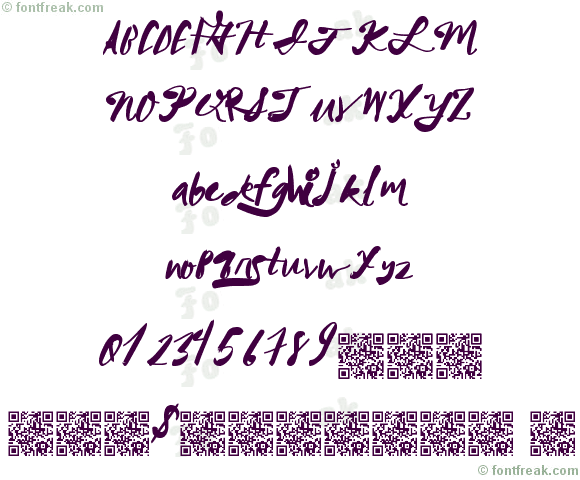
MegaRiches
MegaRiches by Xerographer Fonts is an eye-catching display font that effortlessly combines elegance with a touch of modern flair. This handwritten typeface is characterized by its bold strokes and artistic flair, creating a sense of dynamic movement that draws attention. The fluidity of the letters, paired with a moderate contrast in stroke weight, makes it particularly engaging while maintaining readability. The carefully crafted spacing between characters enhances its visual appeal, ensuring each letter stands out without overwhelming the viewer.
This versatile font is ideal for a range of creative projects. It shines in wedding invitations, where its romantic style can elevate the overall design. Additionally, MegaRiches is perfect for movie posters, capturing the viewer's interest with its unique aesthetic. Restaurant menus can benefit from its inviting tone, making dishes seem more enticing. Furthermore, it serves as an excellent choice for branding materials and social media graphics, helping small businesses make a memorable impression.
Targeting graphic designers, small business owners, and content creators, MegaRiches offers a fresh alternative to more traditional typefaces. Its distinctive style allows users to express creativity while delivering messages in an impactful manner. The font's freeware license makes it accessible for various projects, allowing for broad usage without the constraints of commercial licenses.
What truly sets the MegaRiches font apart is its ability to blend artistic expression with functional design. It stands out in a crowded font library, making it a go-to choice for anyone looking to add a personal and bold touch to their work. With a MegaRiches font free download available, you can effortlessly incorporate this unique typeface into your next project and capture the essence of contemporary design.